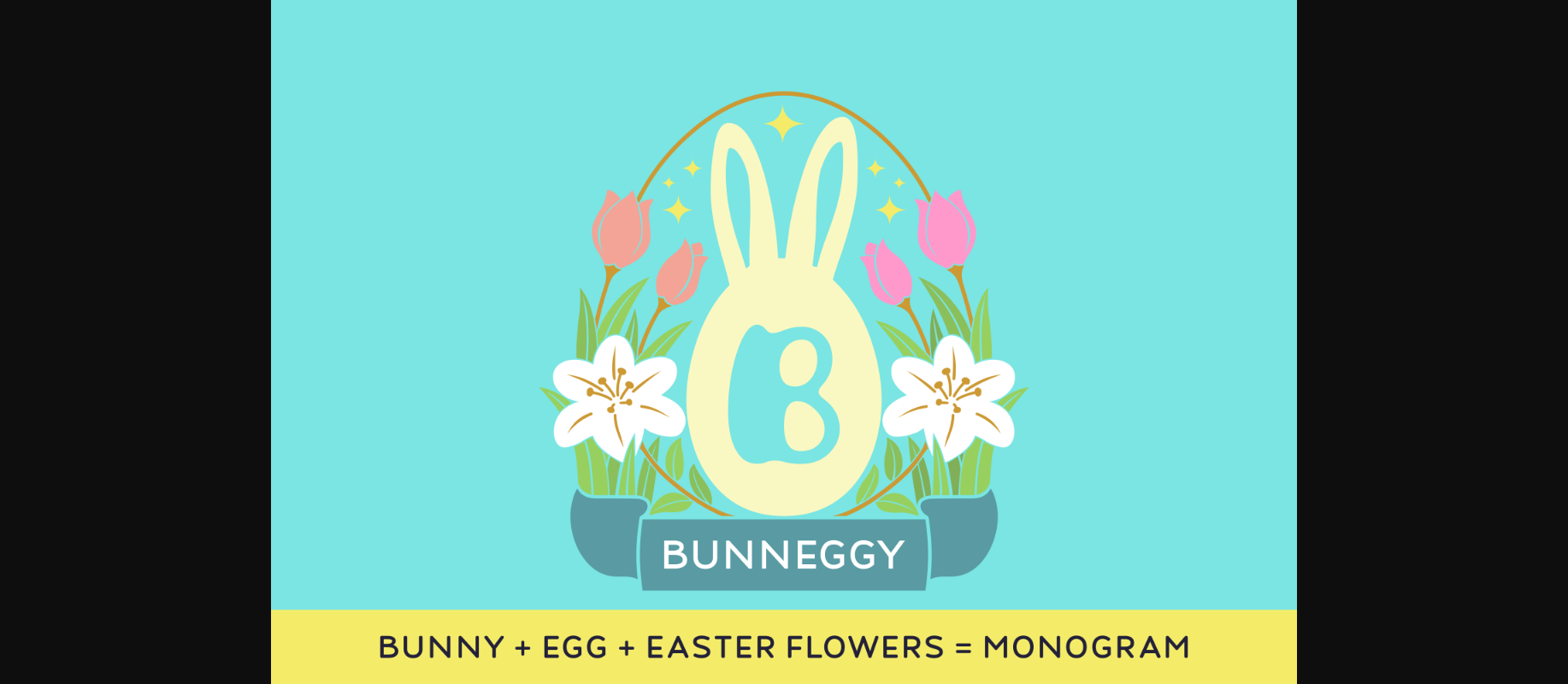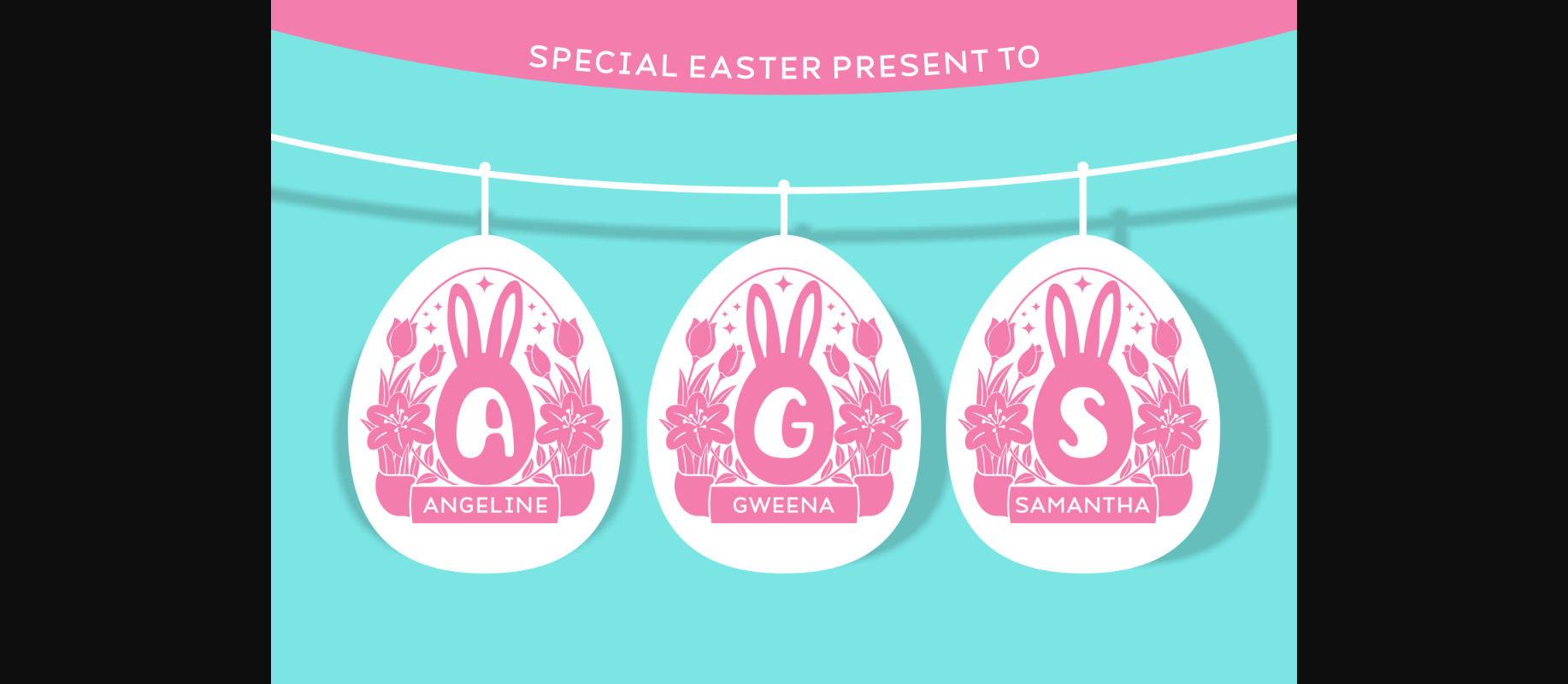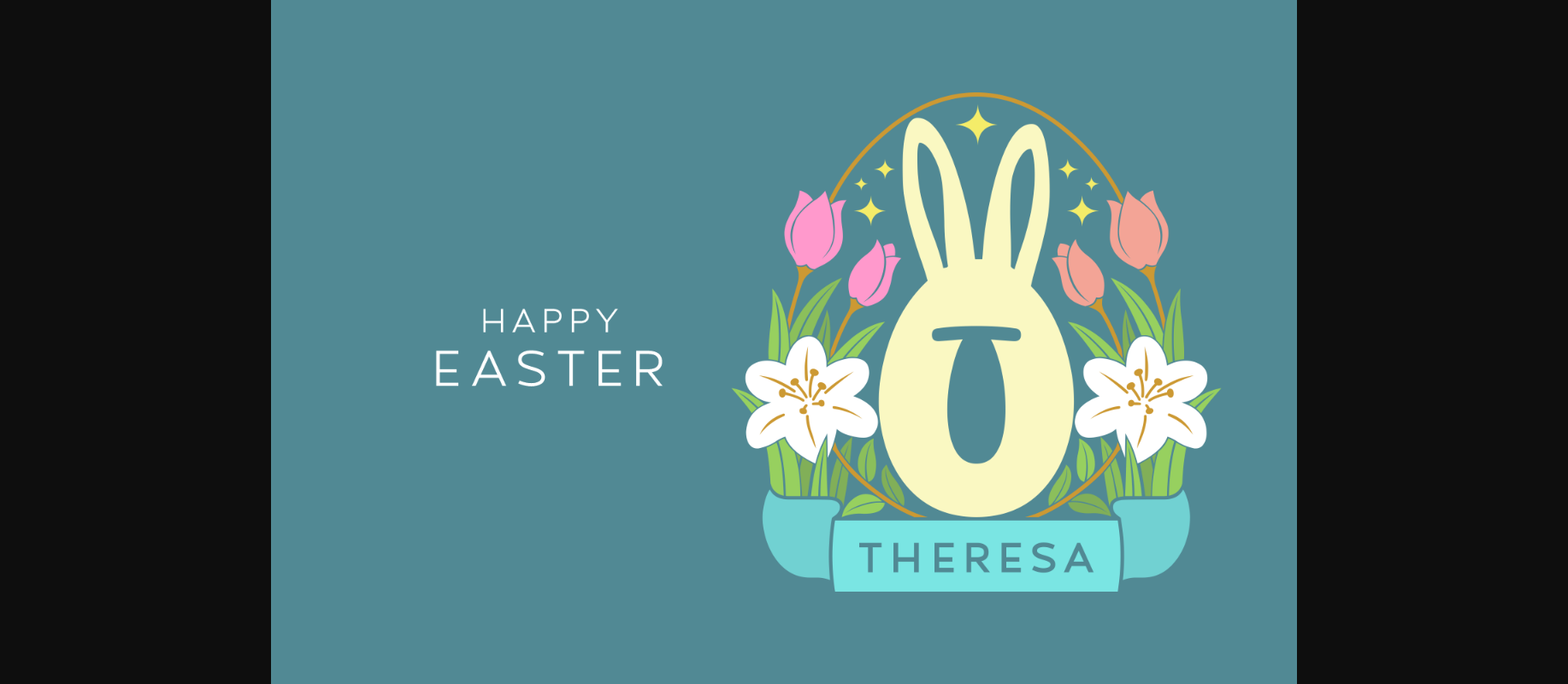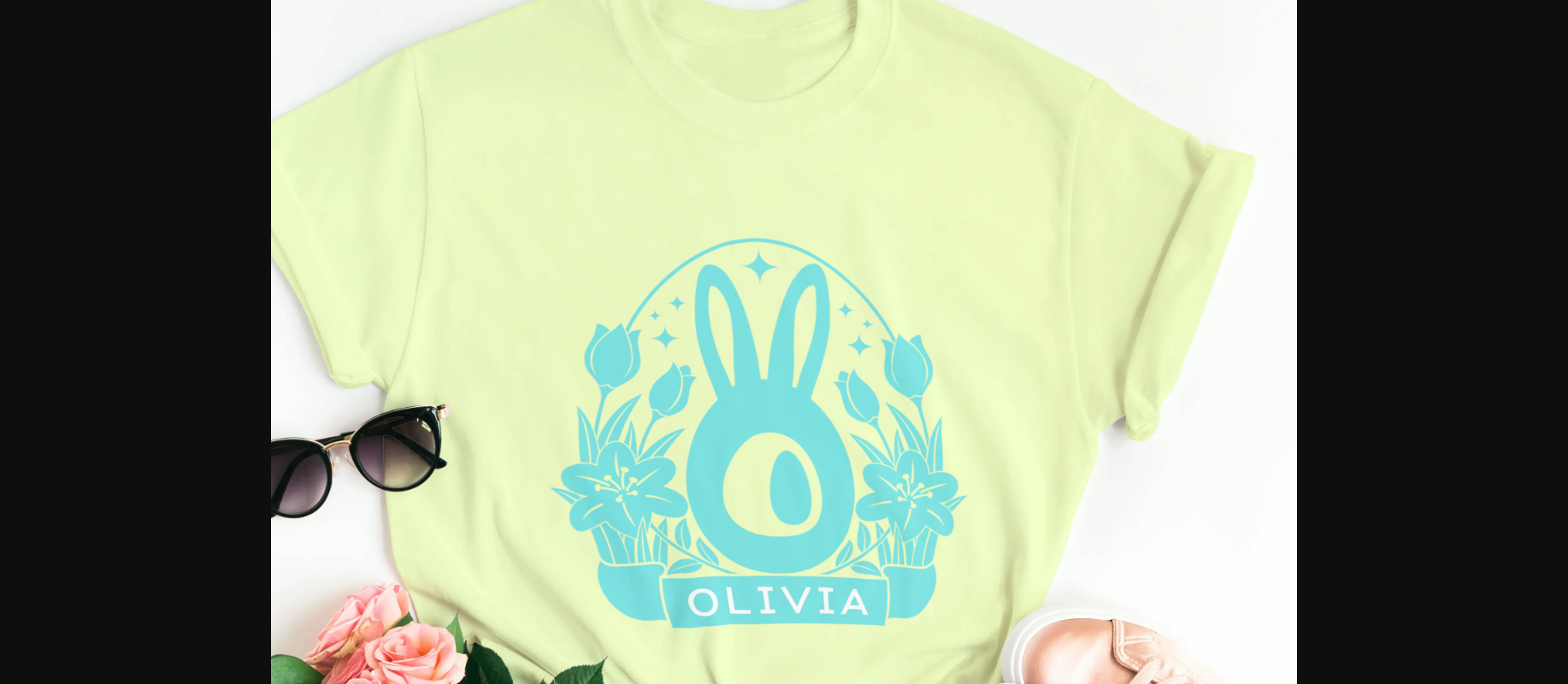
Bunneggy Font
About Bunneggy Font
Bunneggy is a cute and jolly decorative font. Whether you are using it for cartoon-related designs, children’s games, quotes, titles, brand names, book covers, posters, or just any creation that requires a touch of beauty, this font is a great choice.